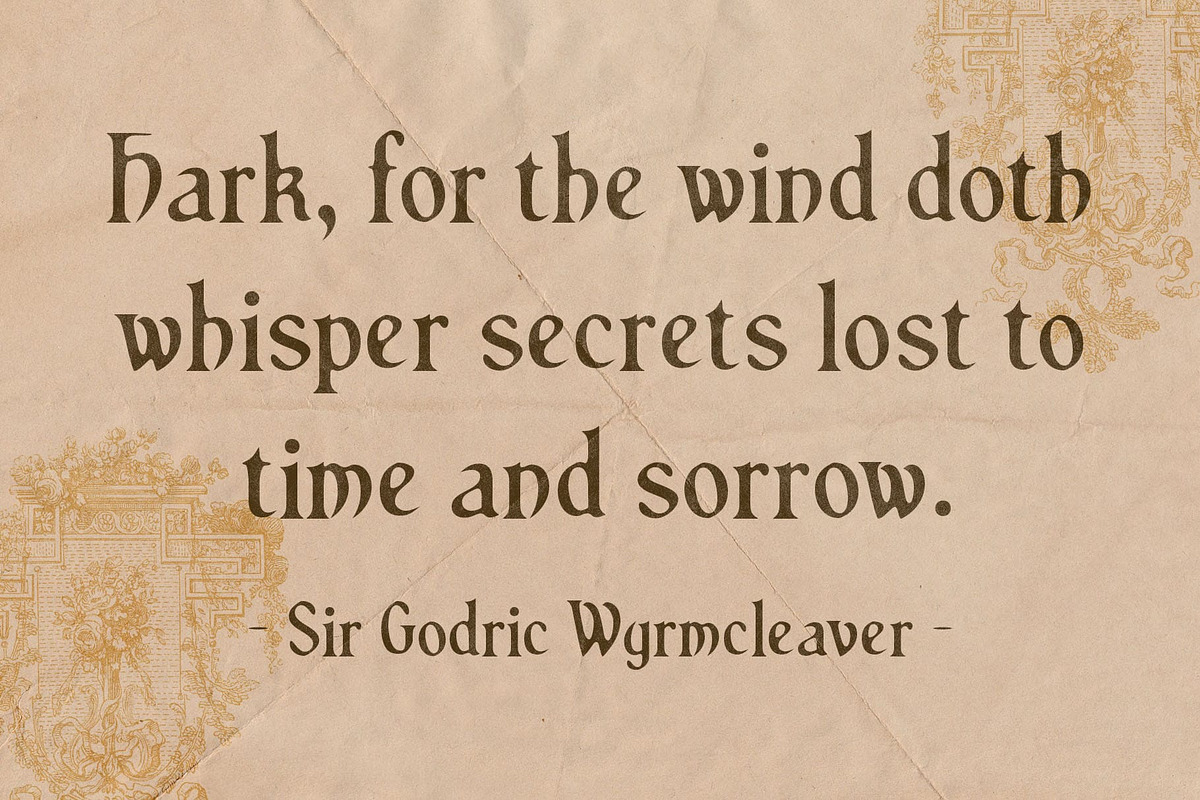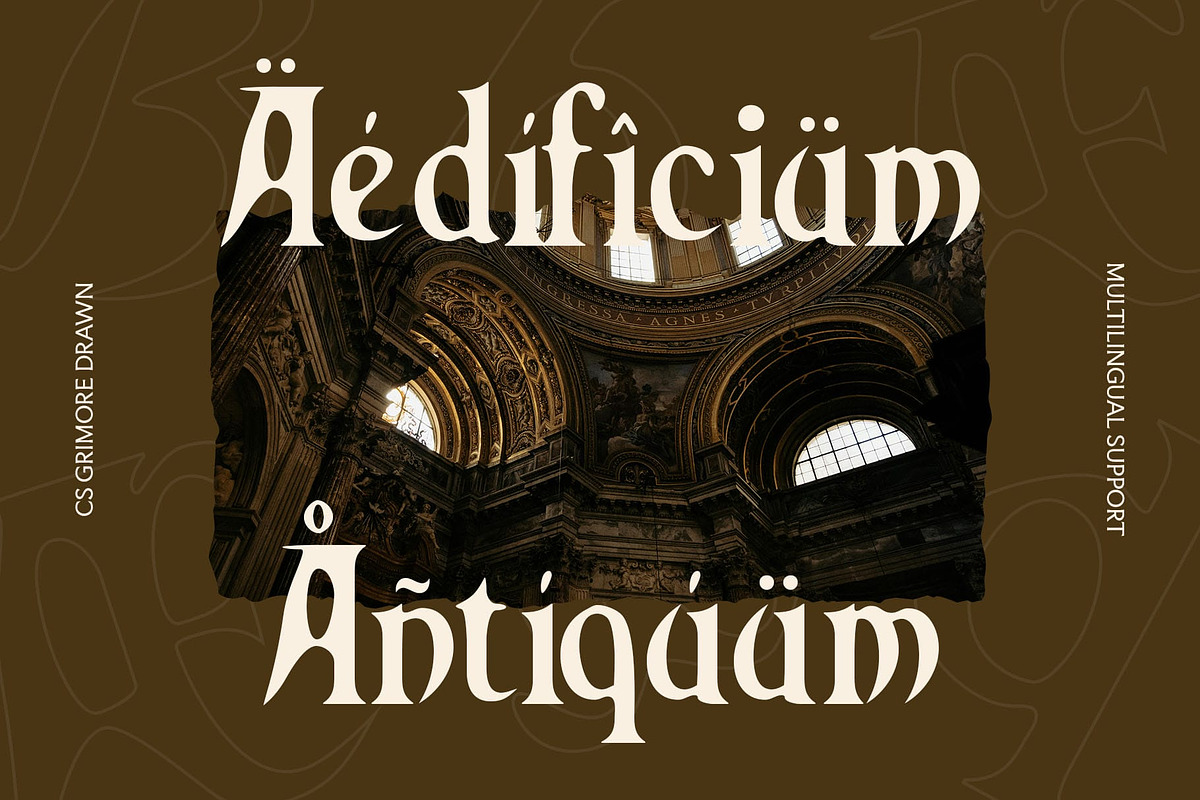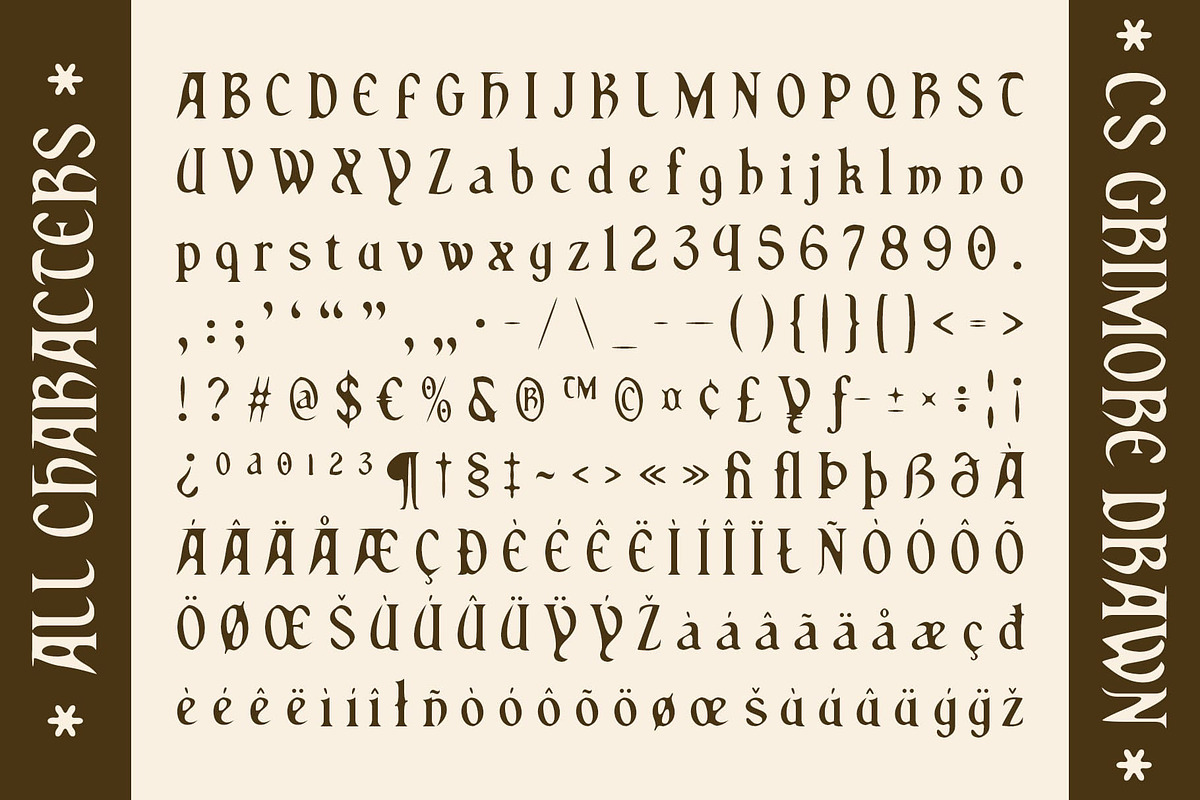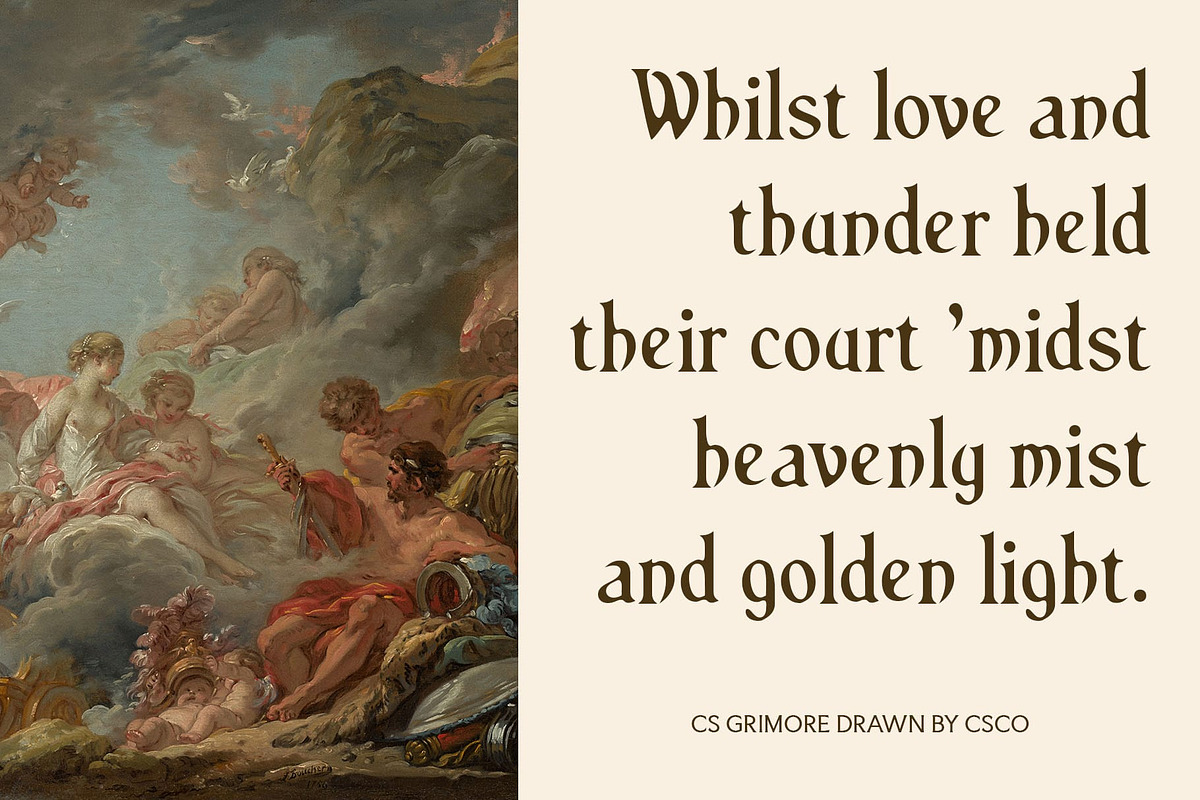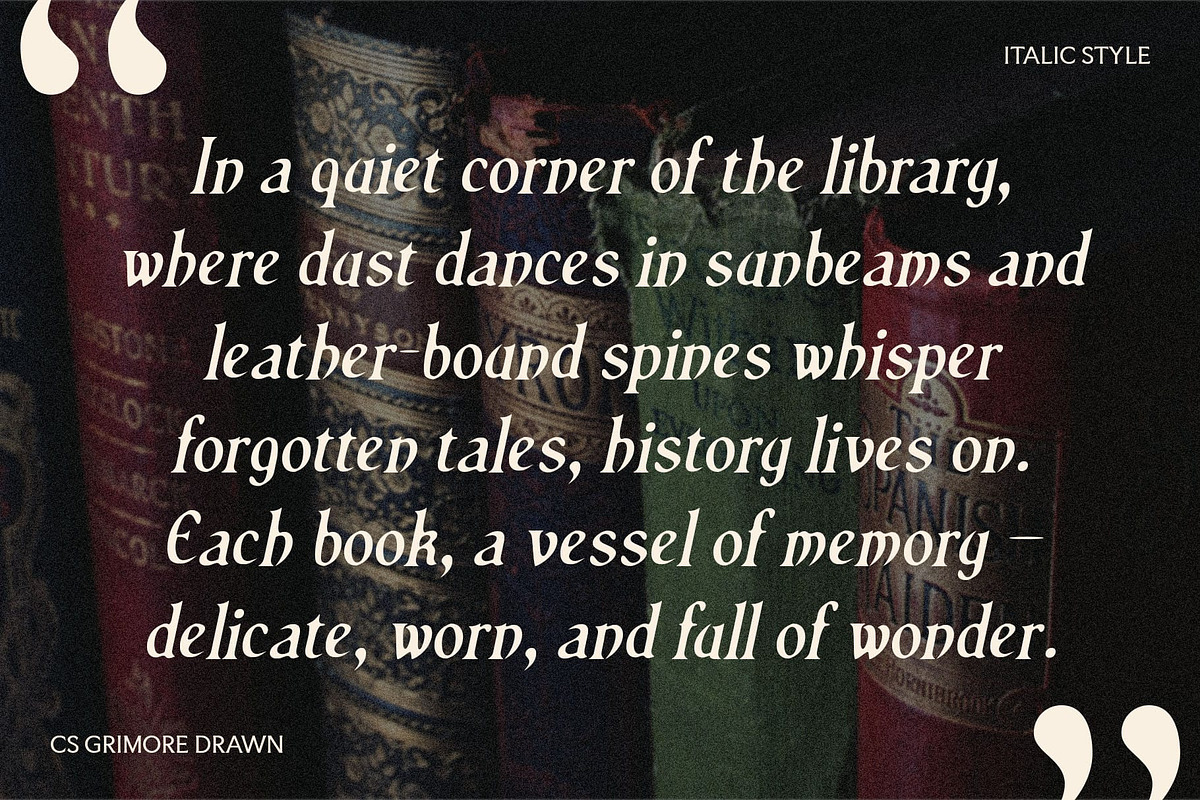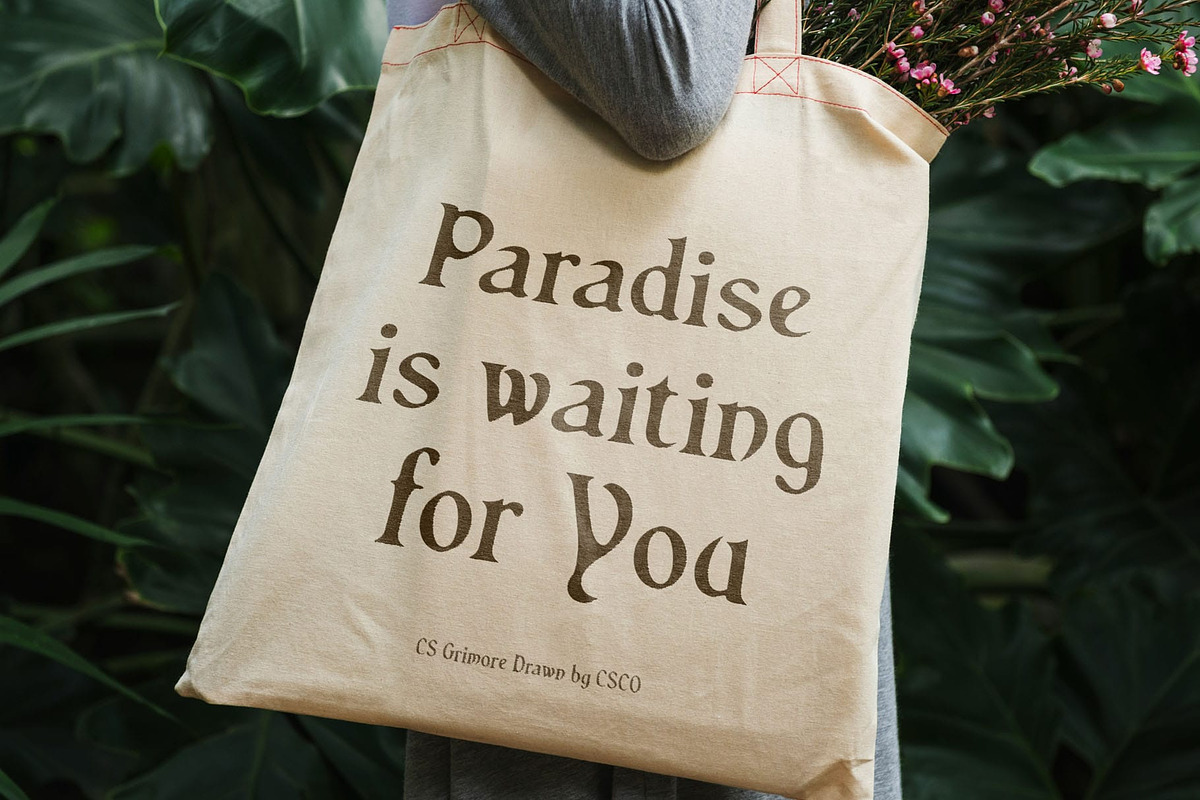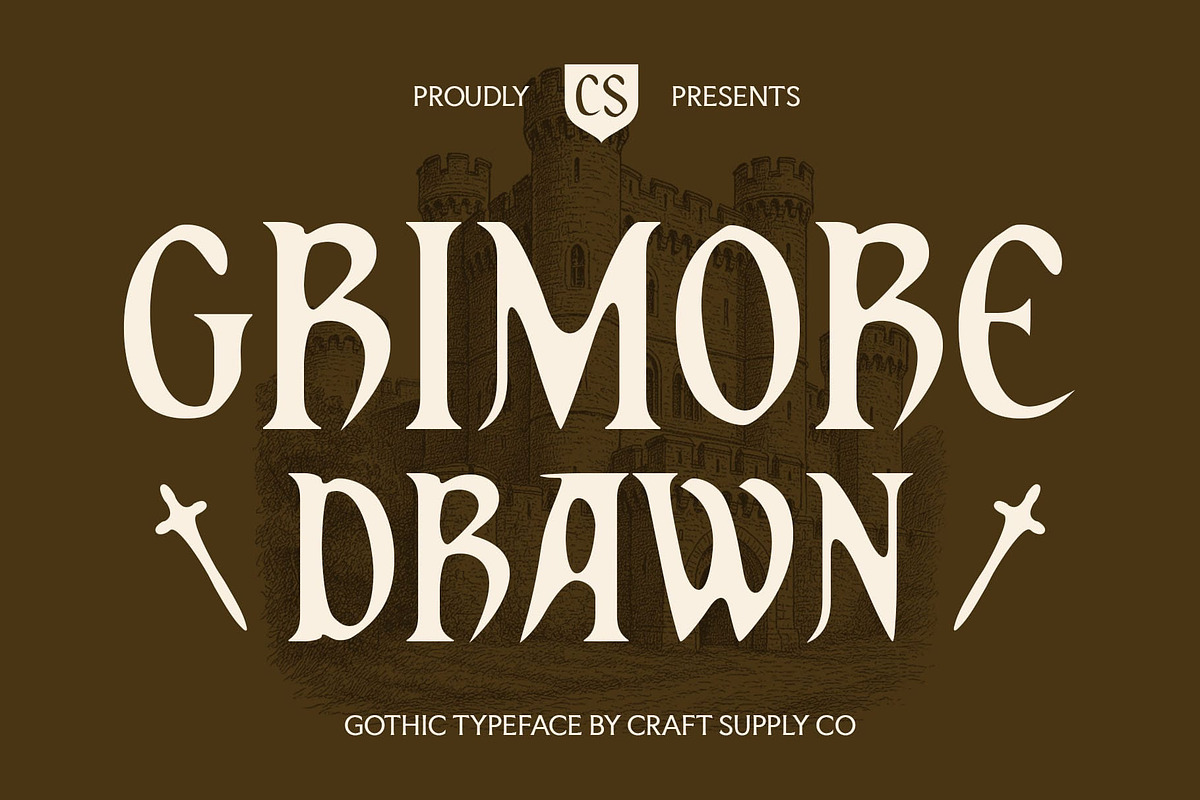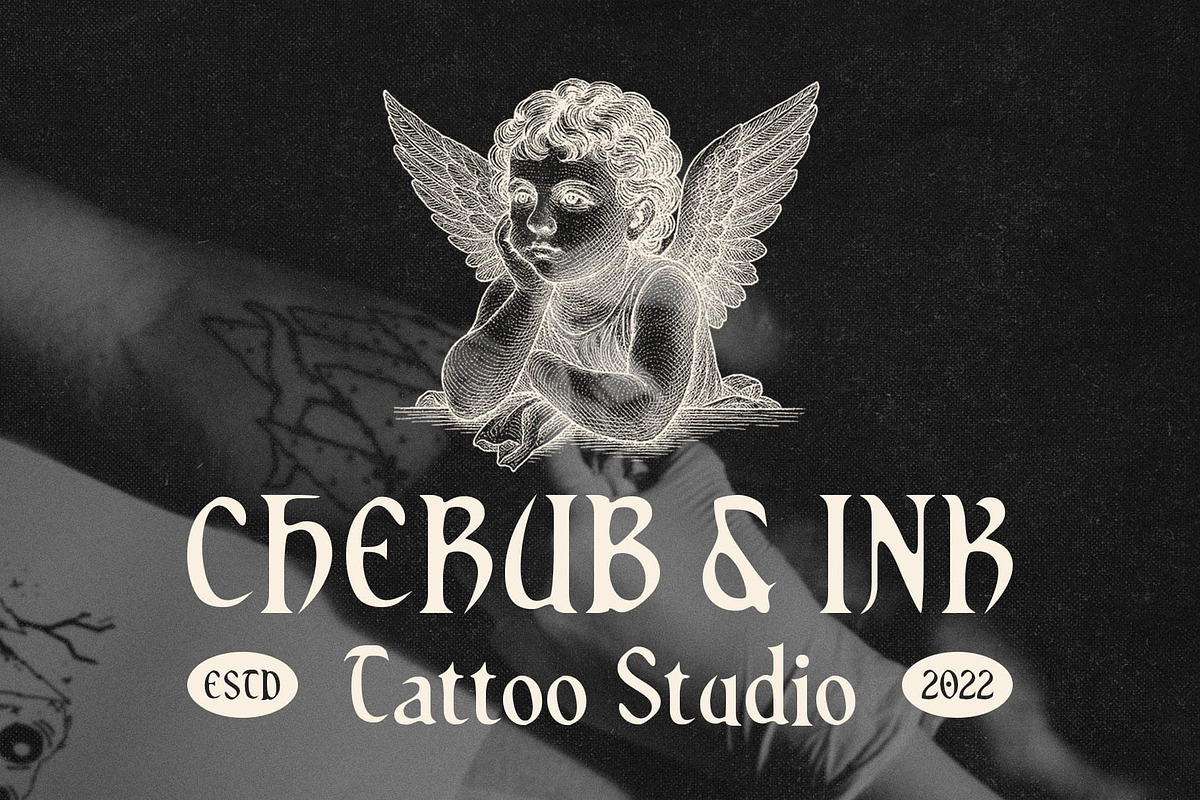
CS Grimore Drawn
CS Grimore Drawn – Timeless Elegance Meets Modern Craftsmanship
Classic Uncial Letterforms with a Modern Twist CS Grimore Drawn is a display serif font inspired by traditional uncial script, known for its rounded, flowing shapes rooted in medieval manuscripts. This font modernizes those classic forms with cleaner lines and balanced proportions, making it both historically rich and fresh for contemporary use.
Subtle Drawn Effect for Handcrafted Charm The gentle drawn texture adds an artisanal feel, enhancing the font’s organic and authentic character. This handcrafted touch brings warmth and personality, distinguishing this historical font from more polished, digital-only typefaces. The font features a delicate drawn effect that adds texture and warmth, giving each character an artisanal, handcrafted feel. This subtle imperfection enhances the organic look and adds a layer of personality, helping this mystical font stand out with its unique handmade quality.
Elegant and Traditional Vibe As a display serif, this exudes sophistication and timelessness. Its graceful curves and well-balanced proportions evoke a sense of heritage, making it ideal for designs that aim to celebrate classic beauty while maintaining a modern sensibility.
Ideal for Editorial, Branding, and Thematic Designs Whether for editorial layouts, artistic branding, or mythology and fantasy-themed visuals, this uncial classic font provides a versatile yet distinctive look. It’s an excellent choice for creatives wanting to blend classic beauty with a contemporary edge.